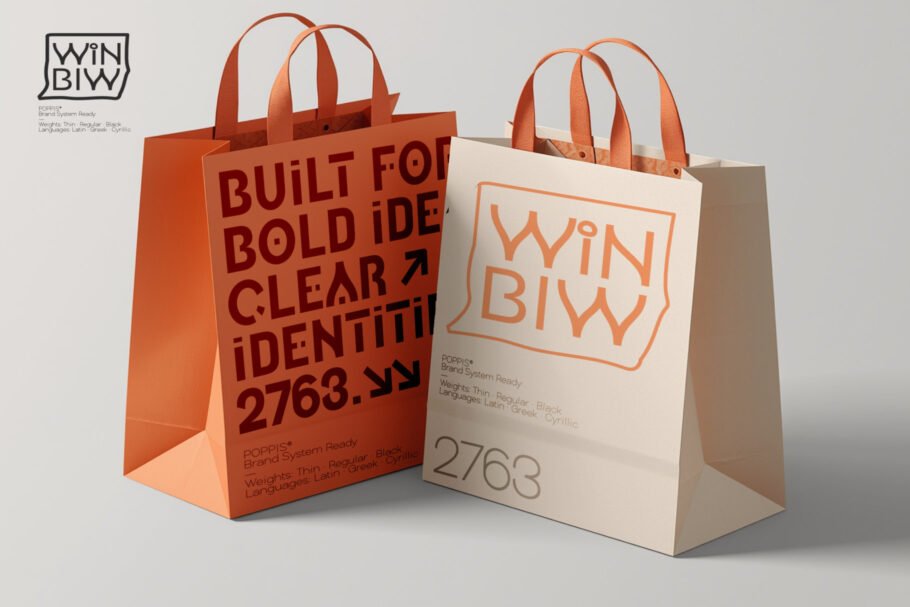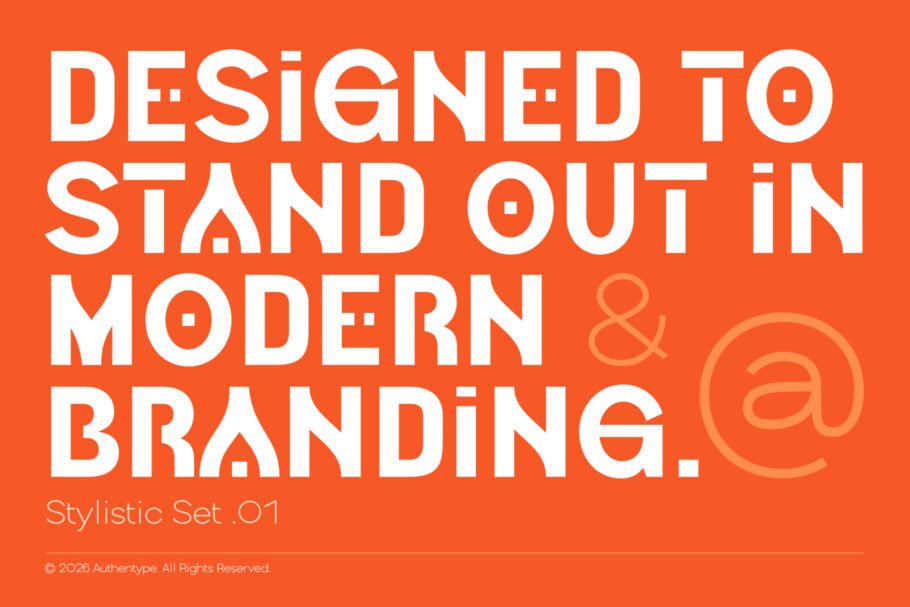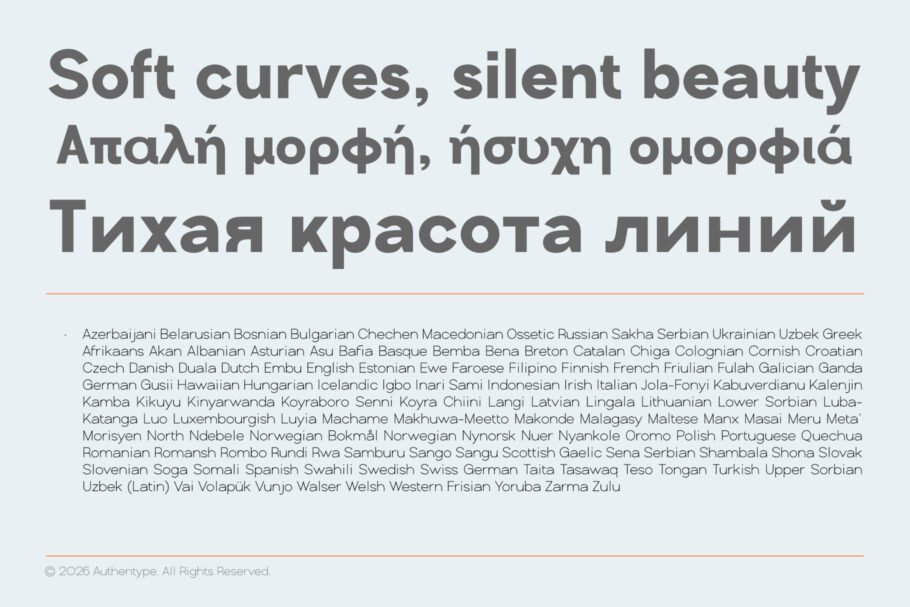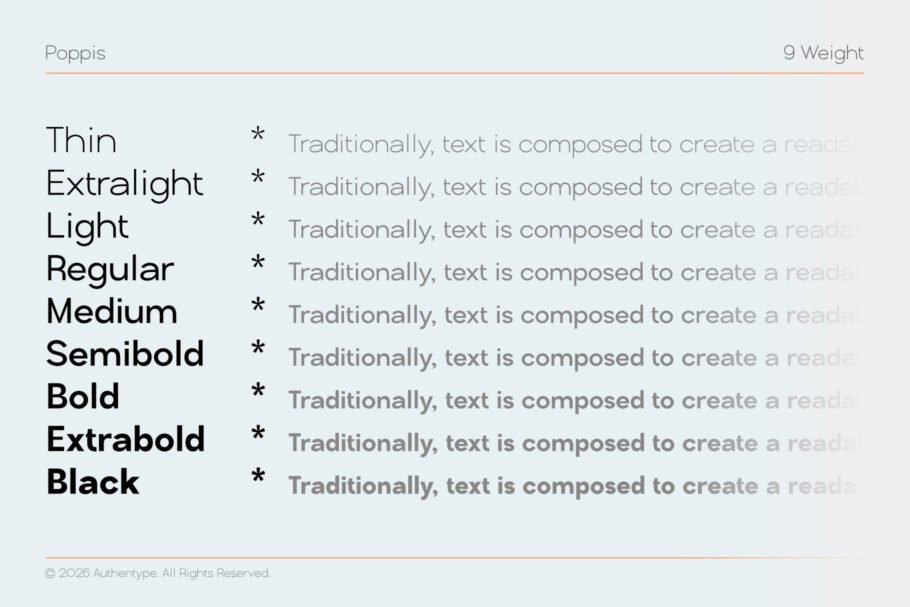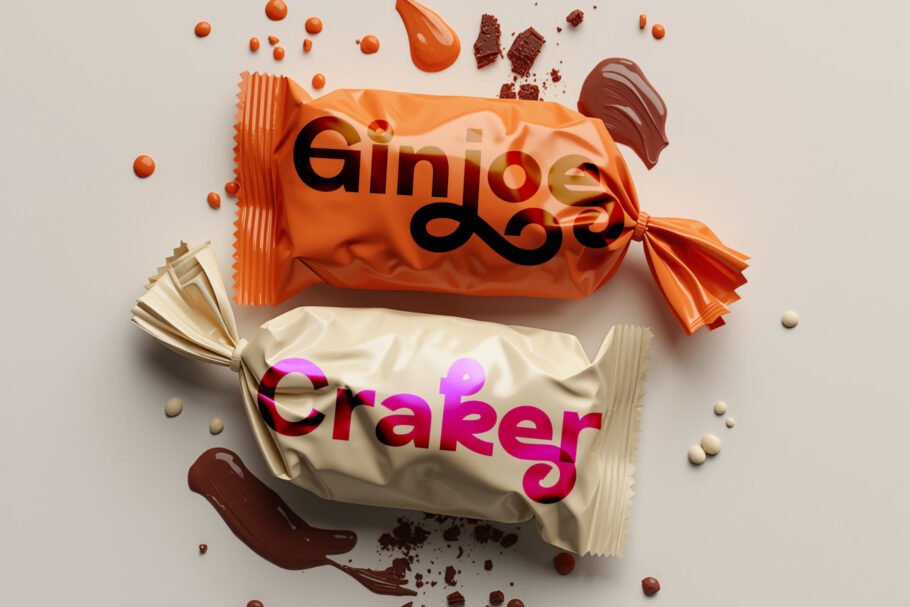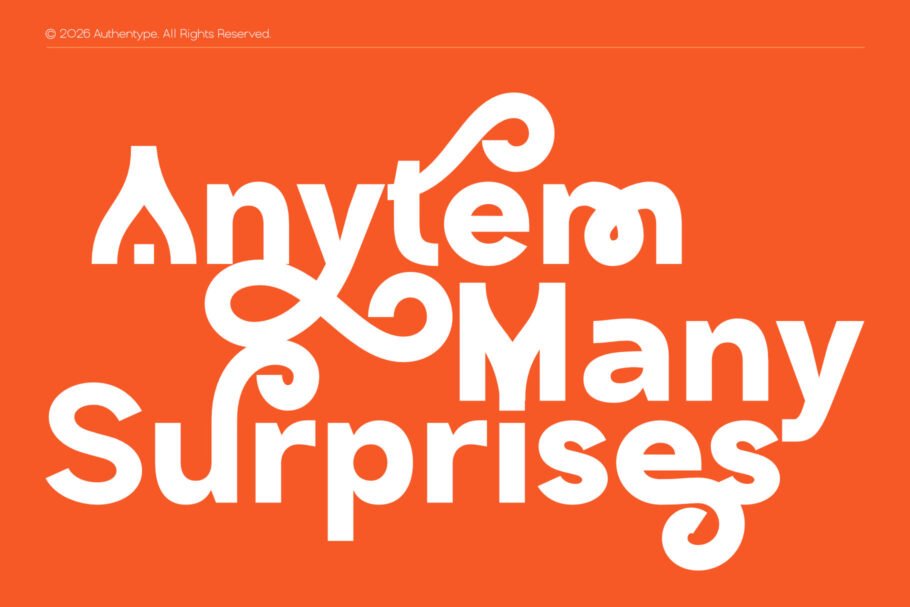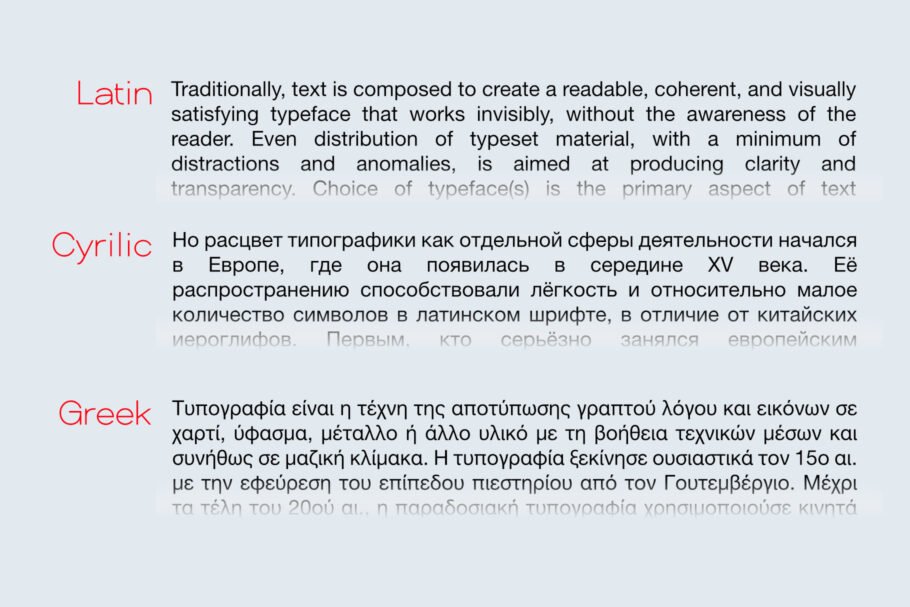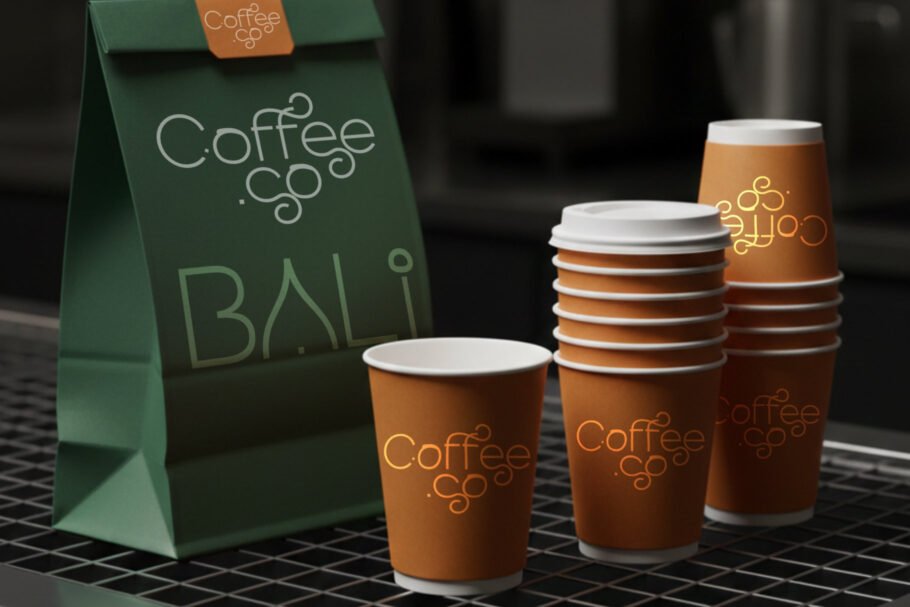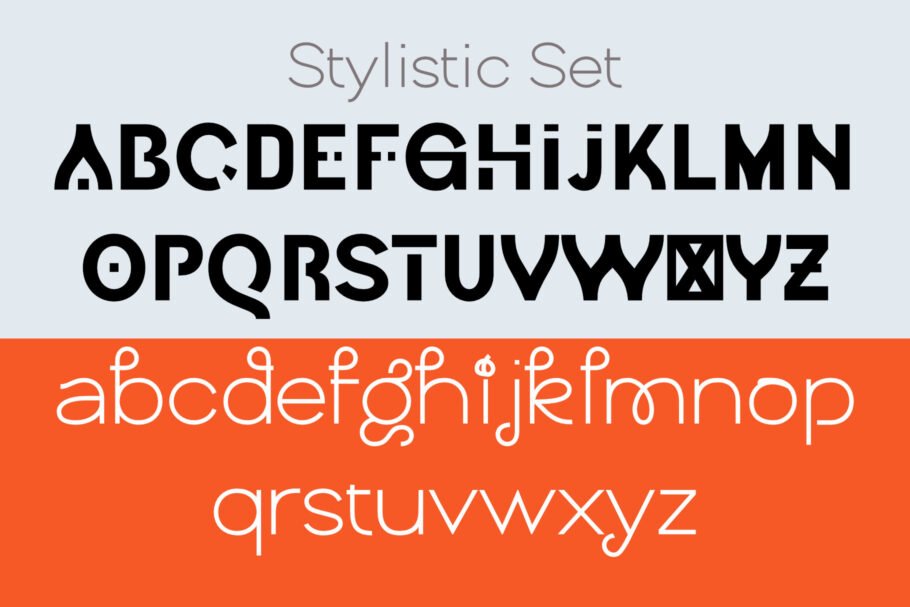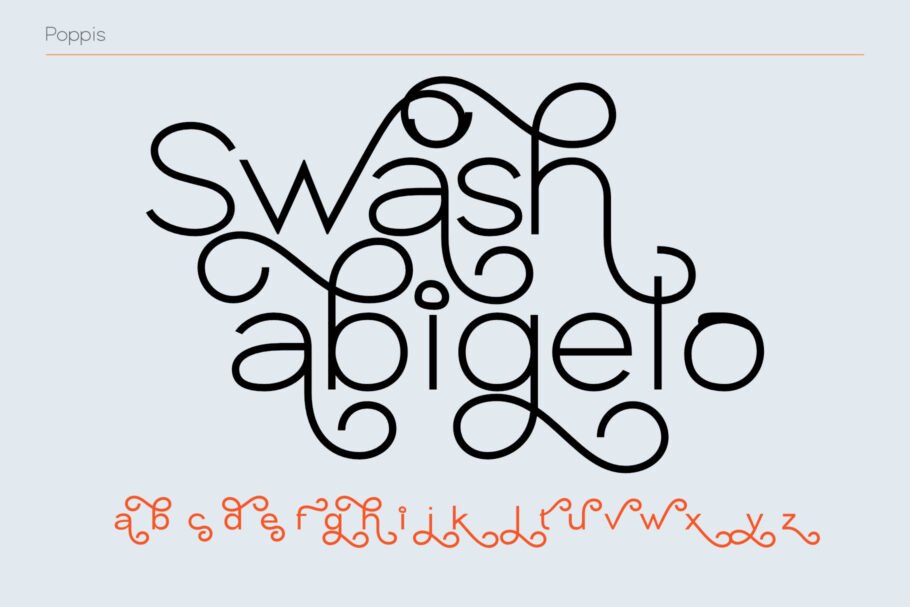
Poppis – Modern Geometric Sans Serif with Cyrillic
Poppis is a contemporary geometric sans-serif font that harmoniously blends technical precision with an artistic flair.
About this family
Poppis is a contemporary geometric sans-serif font that harmoniously blends technical precision with an artistic flair. Crafted for a striking visual identity, it exudes an exceptional visual appeal, making it ideal for branding, web design, and professional editorial endeavors.
Key Features:
* Nine Weight Variations: A comprehensive range of options, spanning from thin to bold, ensures a seamless design hierarchy.
* Global Support: Seamlessly compatible with 127 languages, including Latin, Cyrillic, and Greek.
* Advanced OpenType Features: Equipped with distinctive Stylistic Sets and decorative swashes that effortlessly transform standard text into logo artwork.
* Super-Complete Glyphs: Includes eight ligatures, mathematical symbols, a diverse array of world currencies (including Bitcoin ₿), and fractions.
Ideal Applications:
* Contemporary branding
* Futuristic logo design
* Clean UI/UX
* Premium product packaging